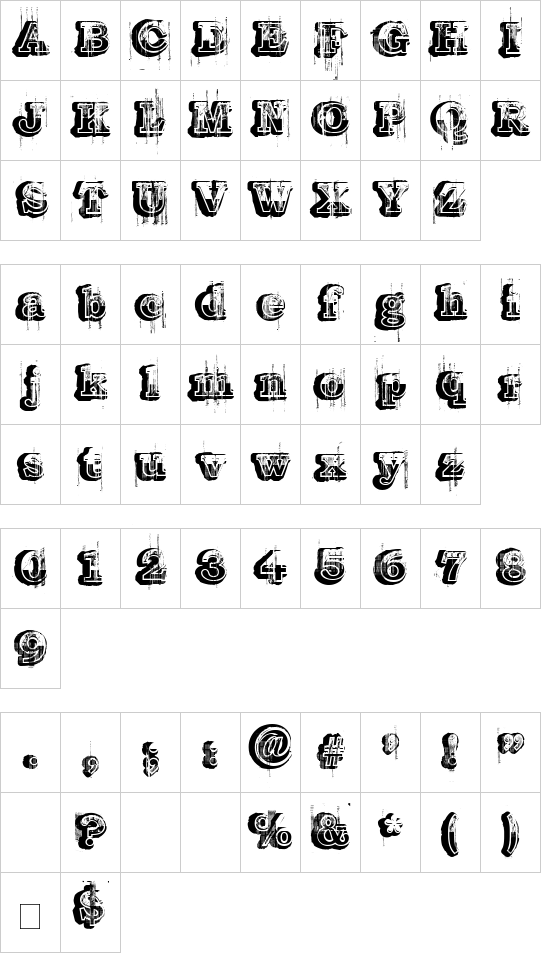
Barber shop is a vintage display font that layers 3D depth, outlined edges, and serif detailing over a grungy texture. The dimensional shading and hollow outlines suggest hand-painted storefront signage, while the worn surface adds age, recalling old barber poles and weathered shop windows.
This retro signage look fits barbershop branding, old-fashioned posters, classic logos, and storefront-style graphics with nostalgic charm. Barber shop is free to download as a TrueType file, and you can preview your own text on the page to see how the layered, textured letters read in a sign or logo before you download and use them.